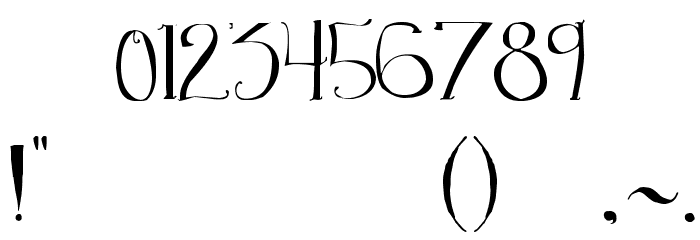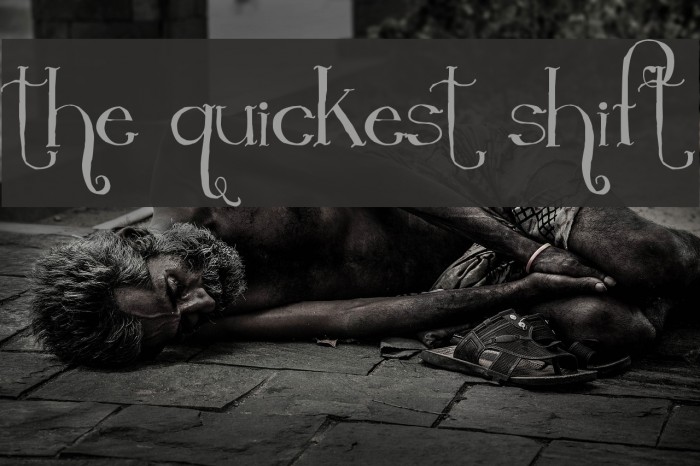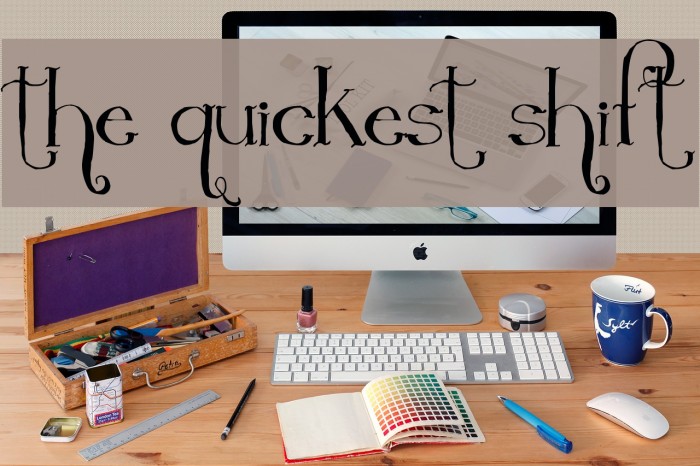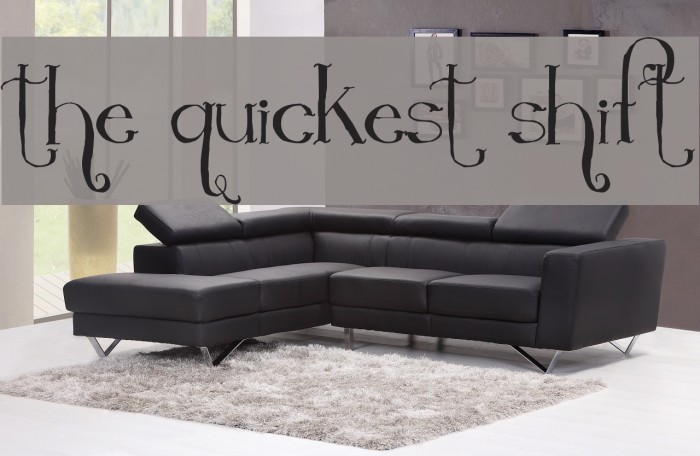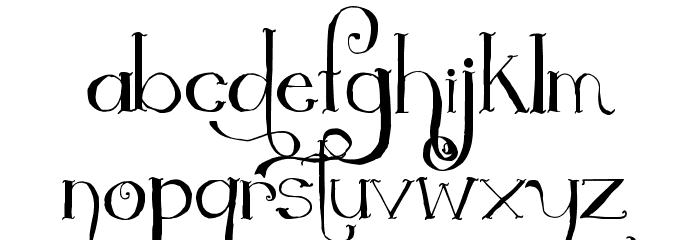
The Quickest Shift Font
The Quickest Shift Description
This font features an elegant and whimsical design with a distinct decorative flair. The letters are characterized by their intricate swirls and loops, giving them a playful yet sophisticated appearance. The uppercase and lowercase letters maintain a consistent style, with elongated ascenders and descenders that add to the font's charm. The numerals and special characters are equally ornate, ensuring a cohesive look across all text. This font is ideal for projects that require a touch of elegance and creativity, such as invitations, greeting cards, or artistic branding.
An elegant, whimsical font with intricate swirls and loops from Handwritten fonts.
- Proposed Projects: Ideal for invitations, greeting cards, artistic branding, and decorative projects.
- Use Case: Headlines, Artistic projects, Invitations